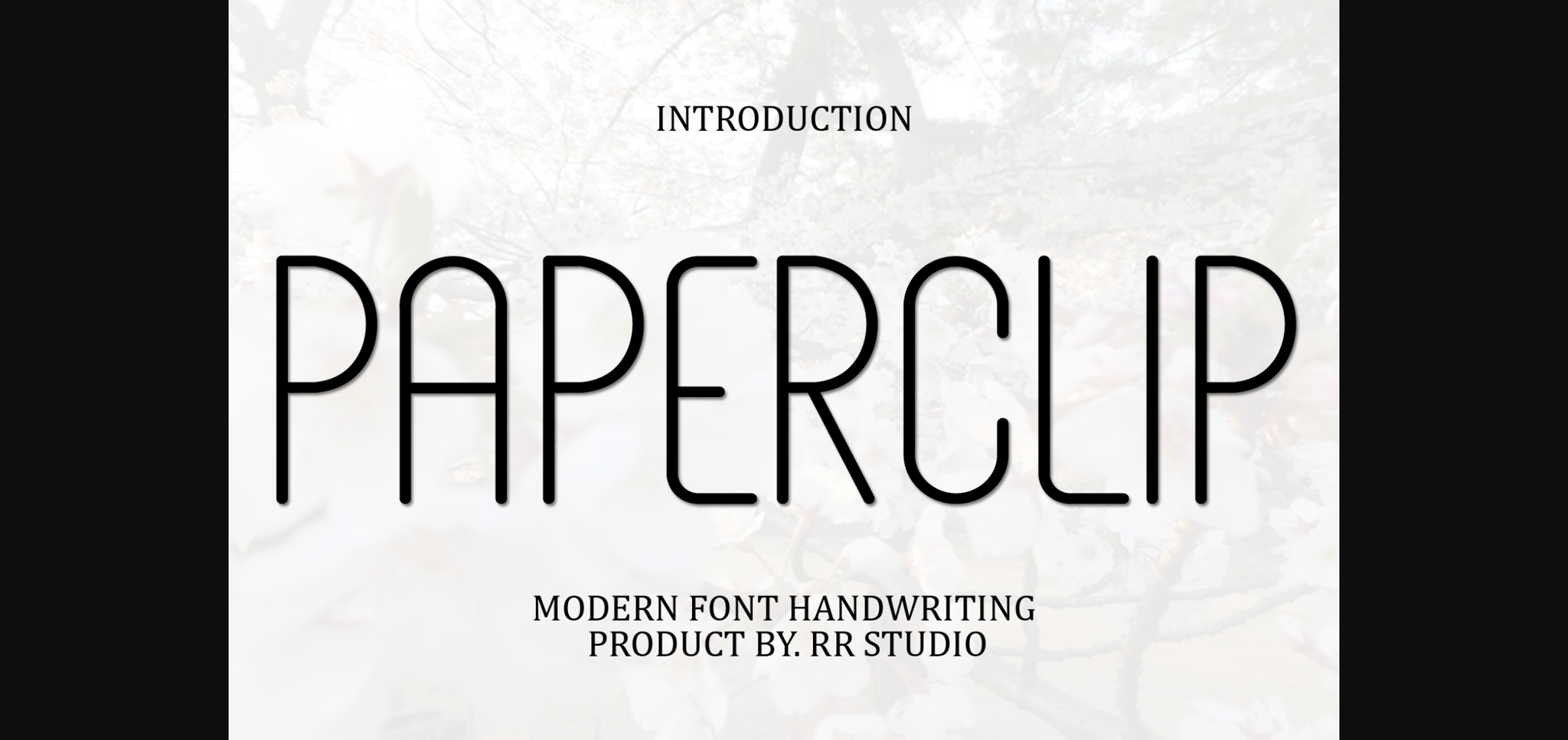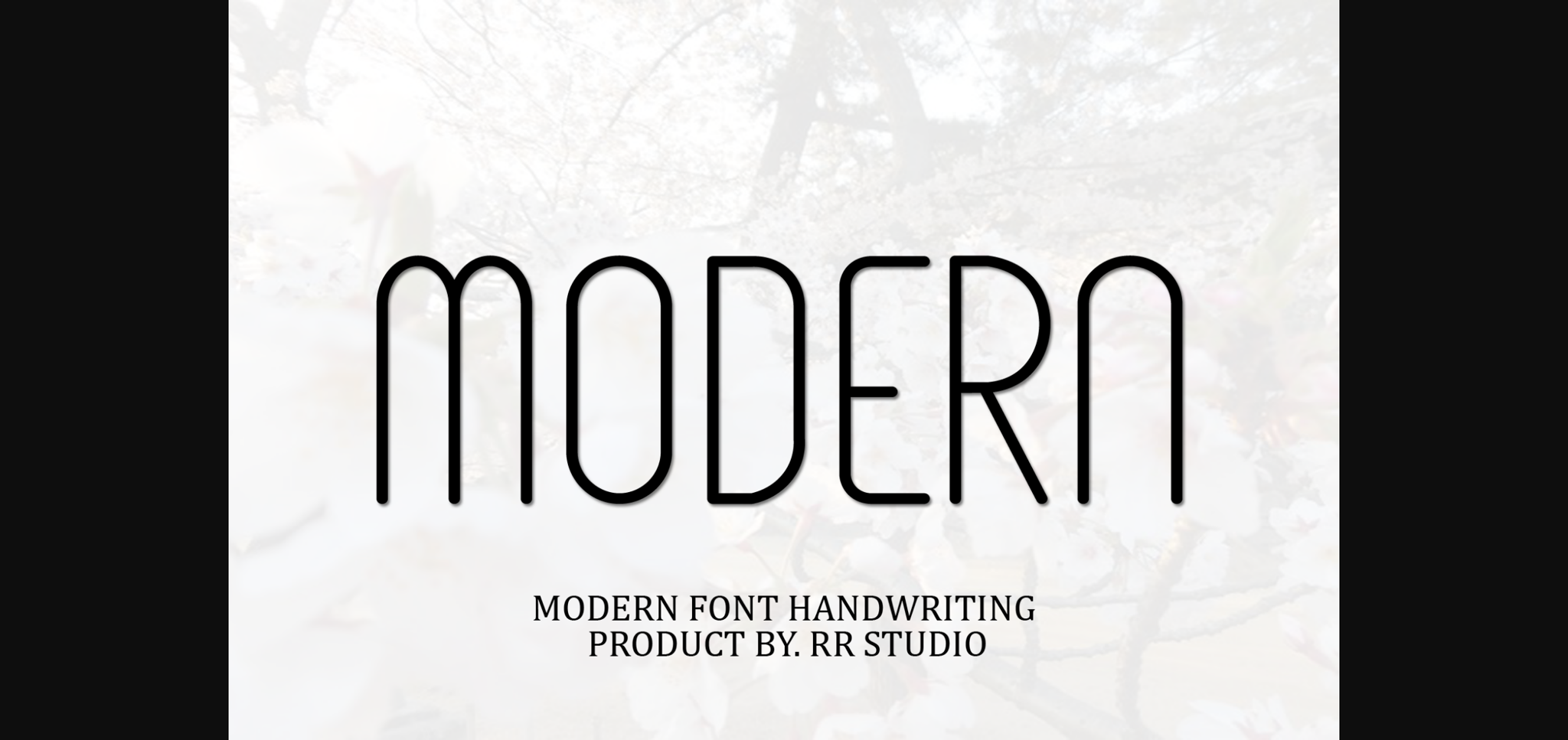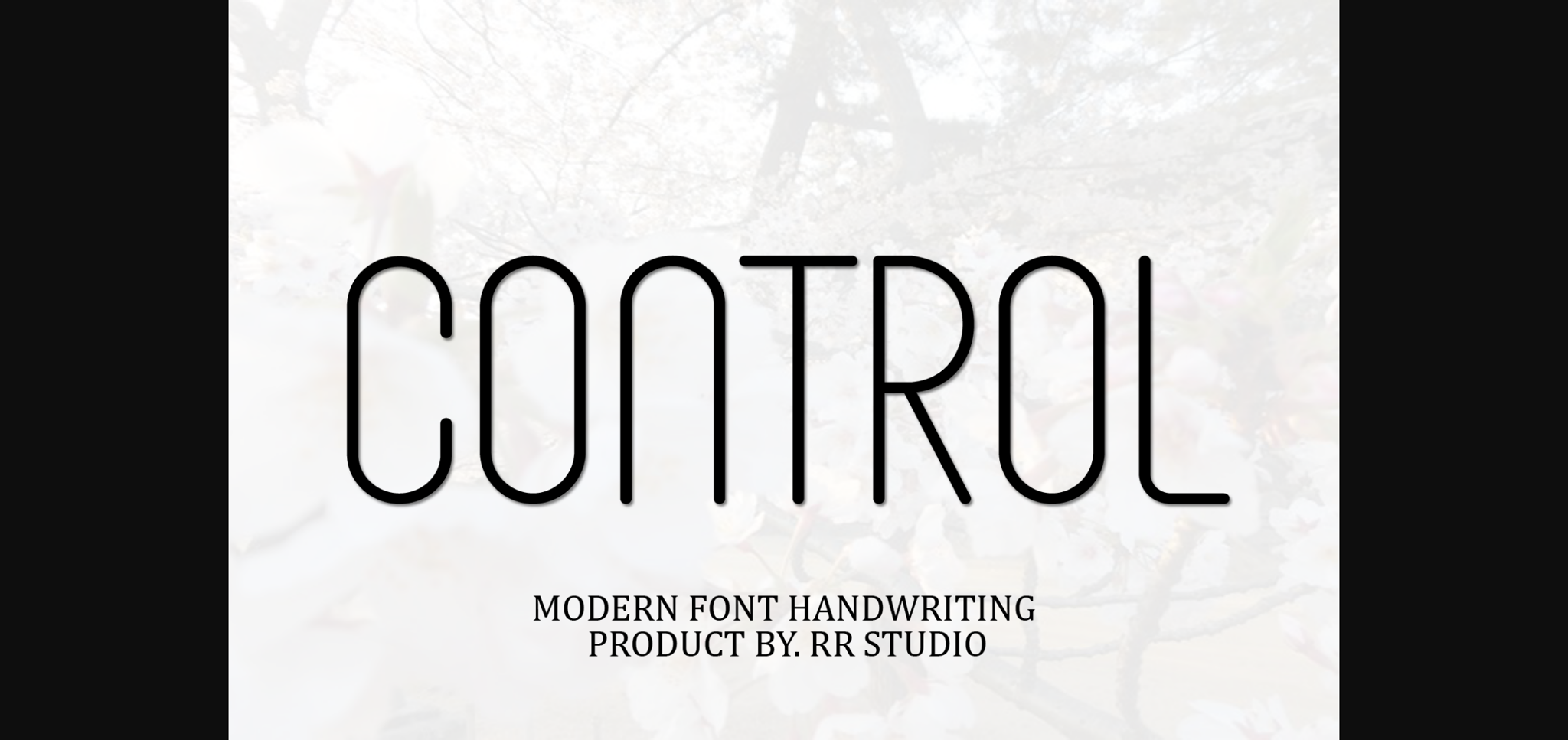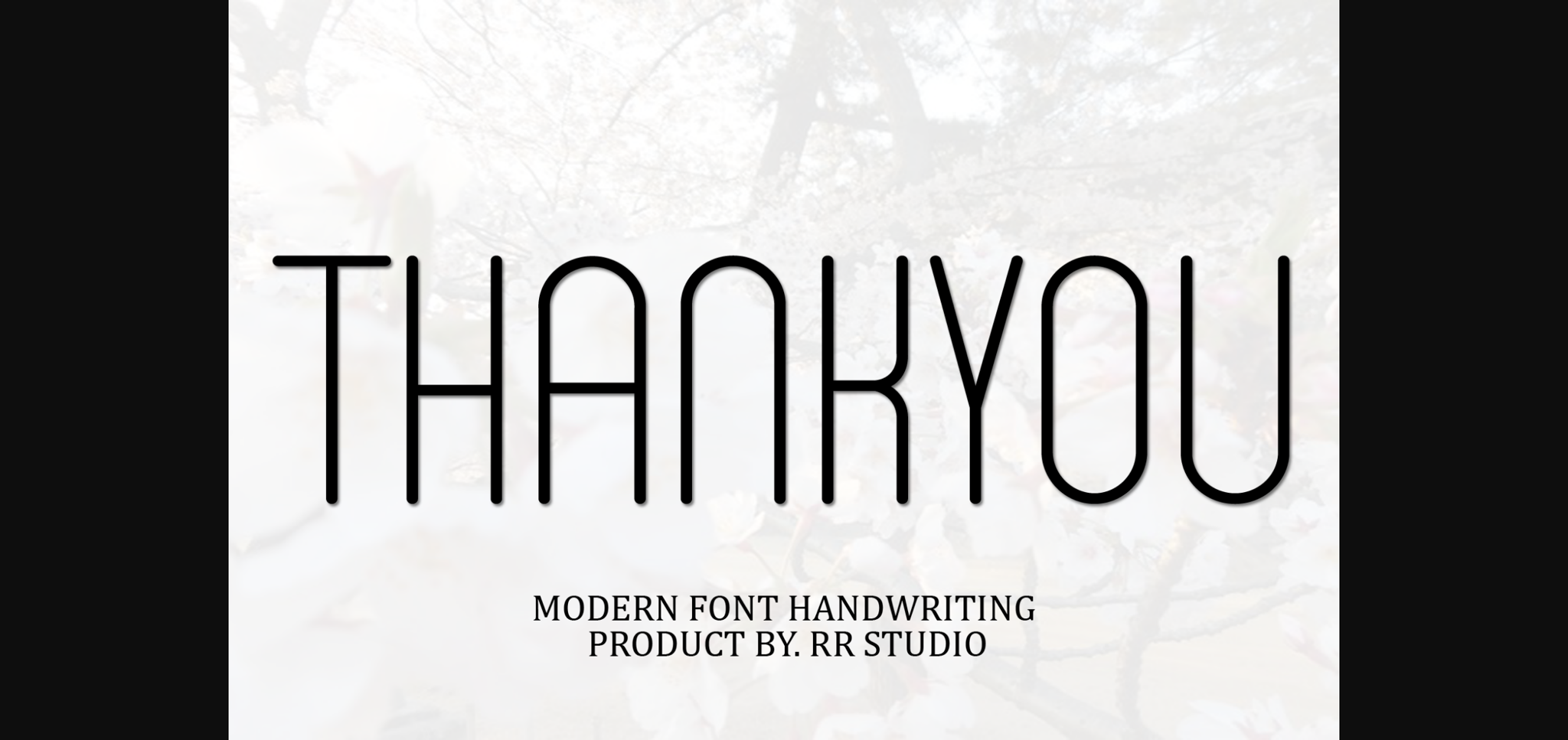
About Paperclip Font
Paperclip is a straightforward and tidy sans-serif font that embodies simplicity and clarity. Its clean lines and balanced proportions make it perfect for various design applications, from body text in publications to headers on websites. Paperclip maintains readability while offering a modern and uncluttered aesthetic for your projects.